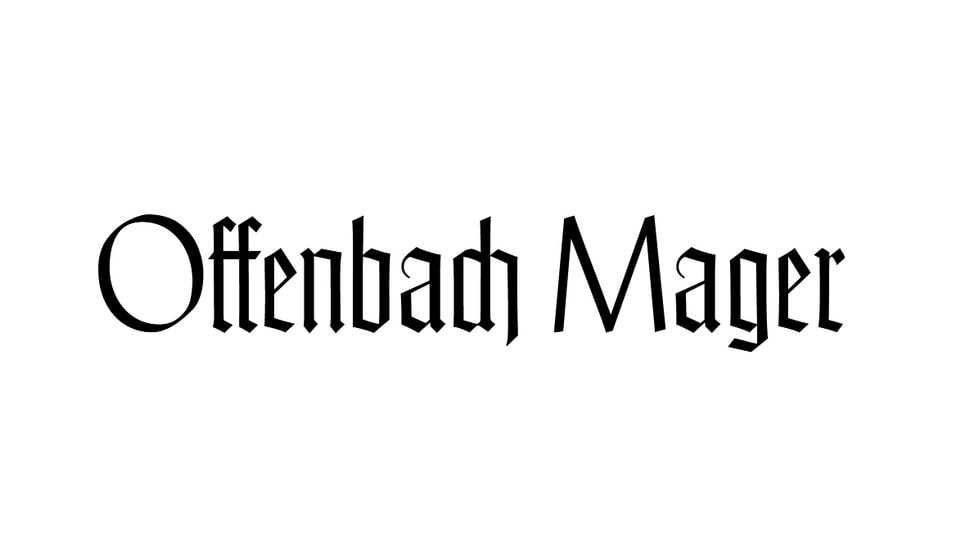
Download Offenbach font, a hybrid, pairing wide roman capitals with narrow gothic minuscules, a mixture Koch had experienced in several of his typefaces.
Designer: Rudolf Koch